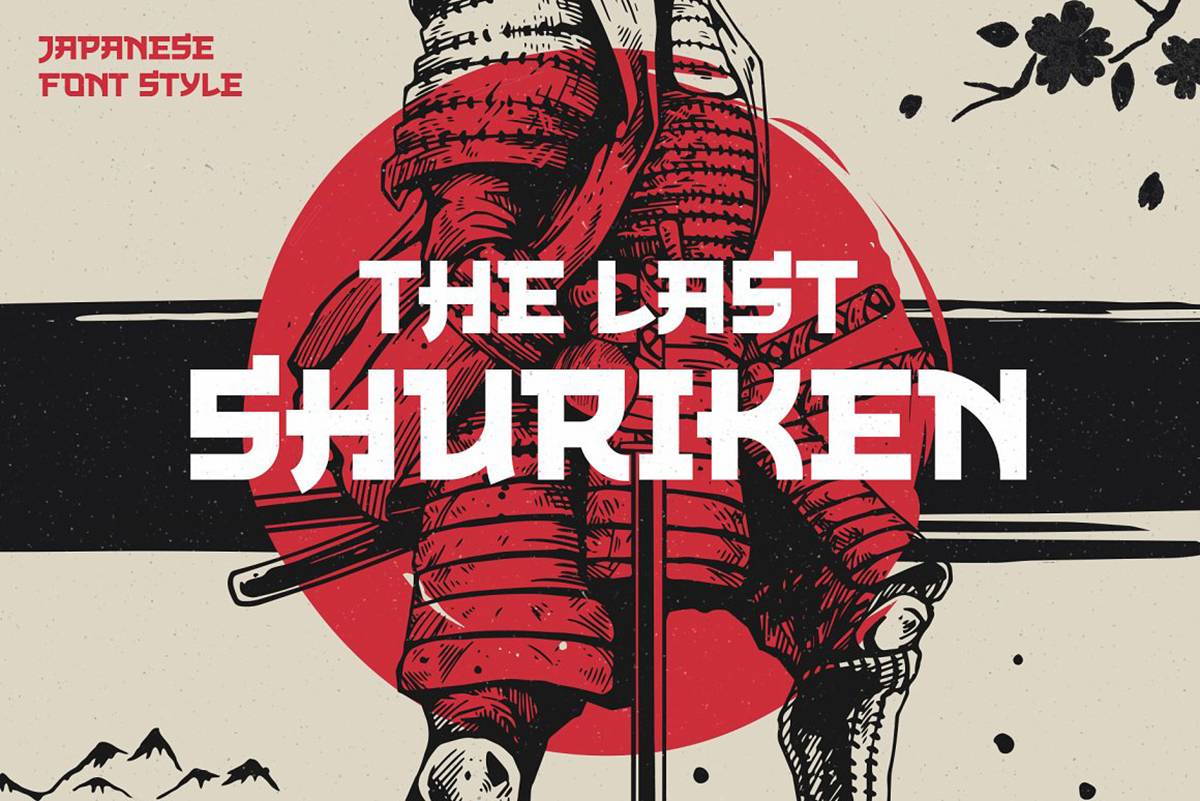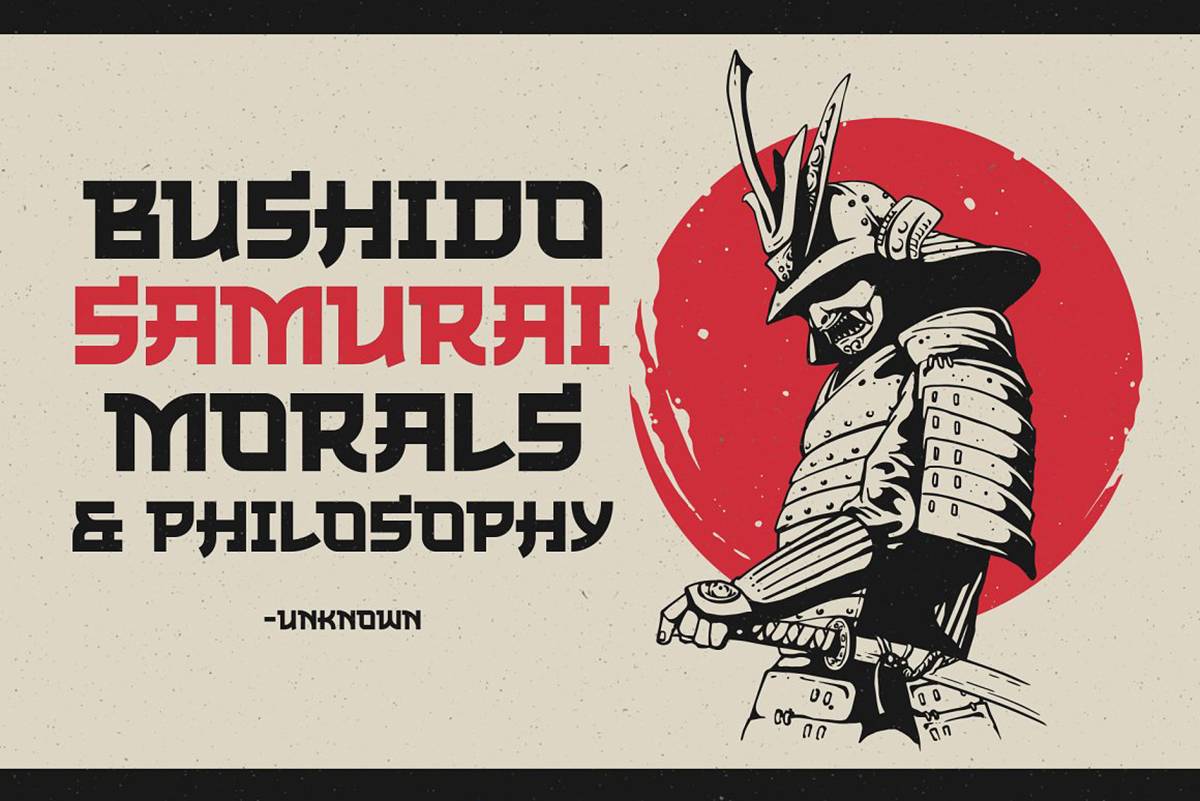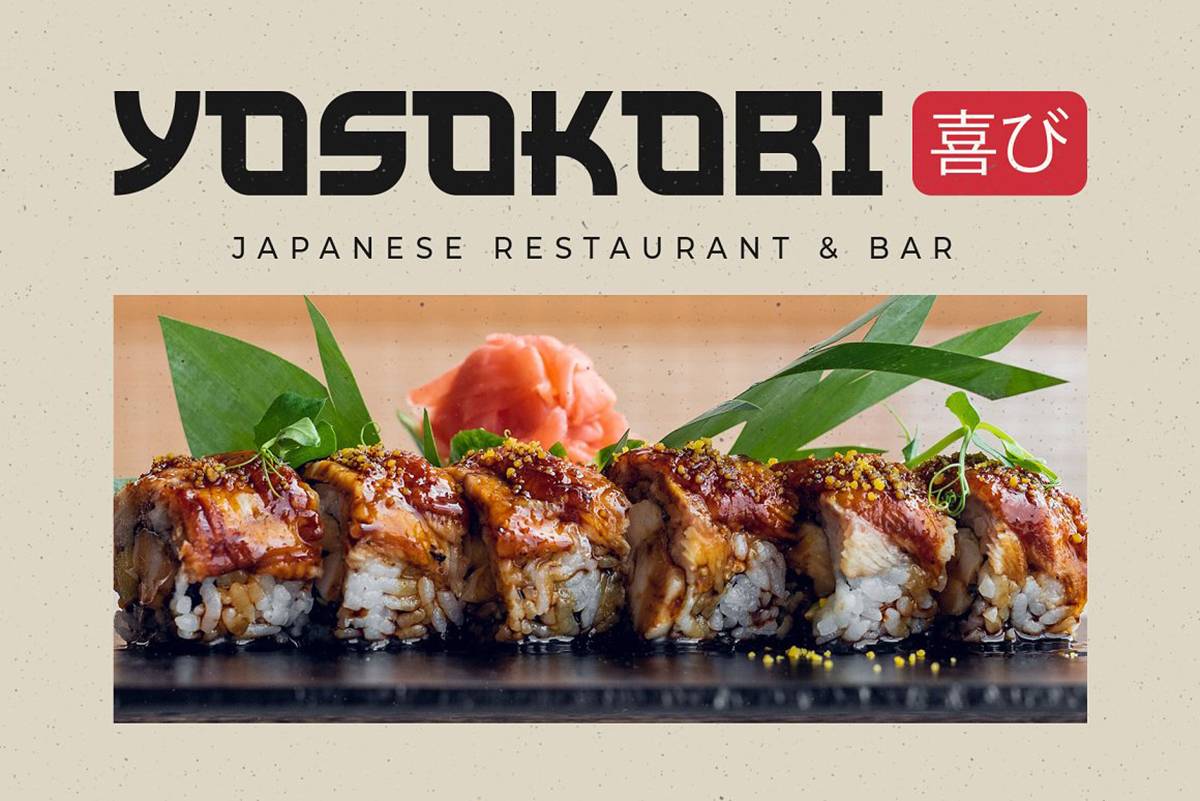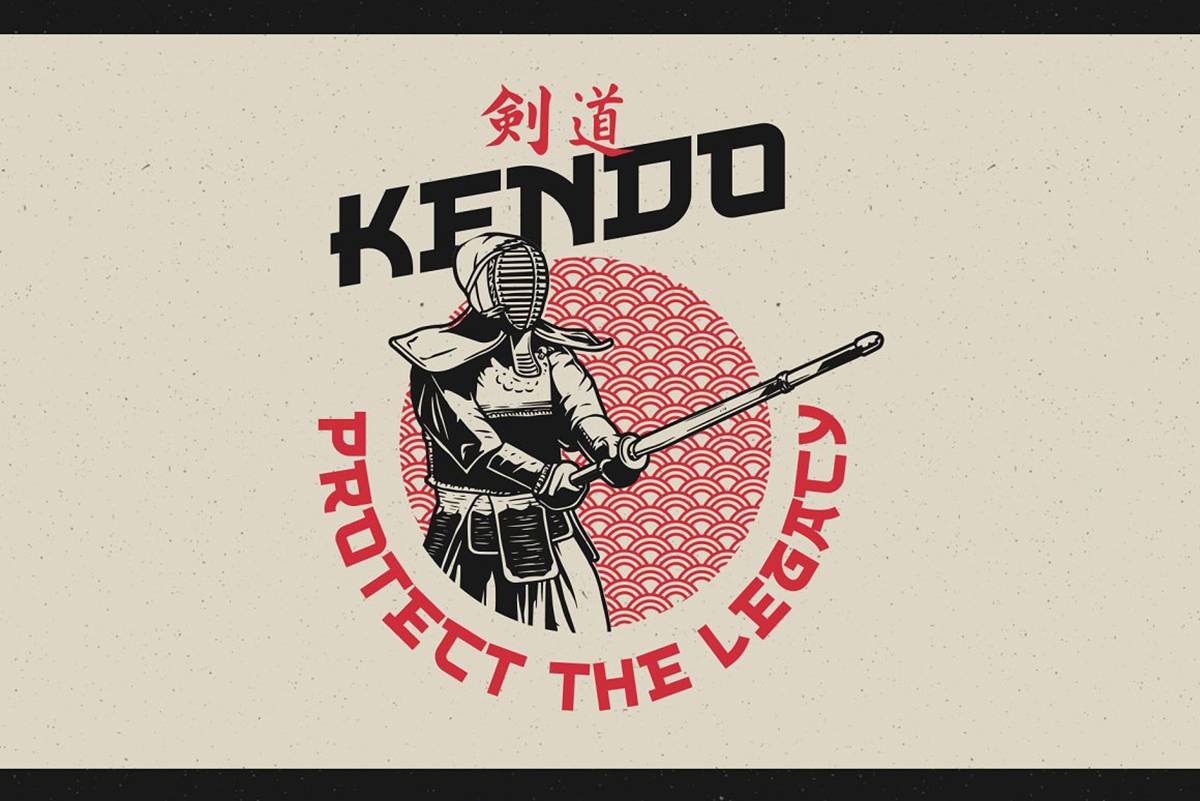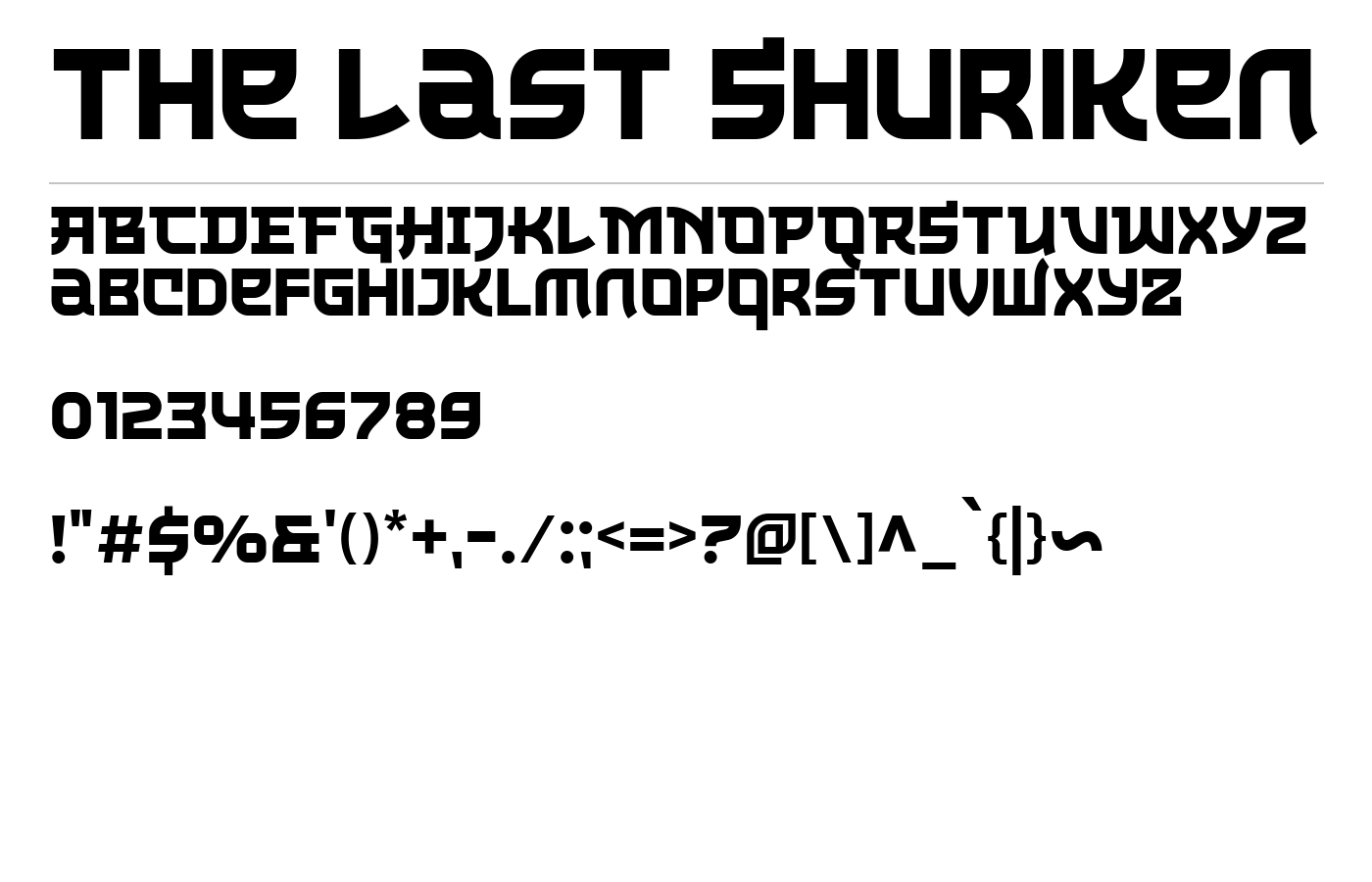
The Last Shuriken is an edgy, bold sans serif font with a strong geometric feel and unique angular cuts that evoke a modern, ninja-inspired aesthetic. Its condensed, heavy letterforms with sharp, stylized details make it perfect for impactful headlines, logos, or branding that aims to convey power and intrigue with a distinctly futuristic or martial arts vibe. This font works well in creative projects where a striking and dynamic presence is essential.
The Last Shuriken Font
About The Last Shuriken Font